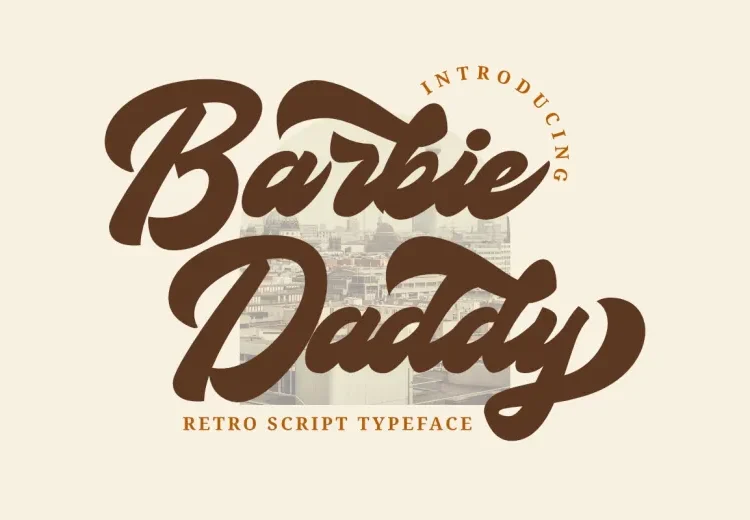
Barbie Daddy Font
Barbie Daddy is a charming old-fashioned script font that exudes retro feminine style, making it a striking choice for a wide array of creative projects. Its nostalgic yet vibrant appeal makes it a standout option for designs that demand attention and flair.
This versatile typeface is ideal for crafting projects utilizing digital technology, including circuit designs, T-shirts, and mugs. Its expressive style also shines in invitations, greeting cards, wall hangings, and eye-catching headlines. Whether you’re creating song titles, album covers, or music-themed stickers, Barbie Daddy Font adds a playful and stylish touch.
With its extensive usability, this font is perfect for quotes, SVG designs, and beyond. It invites designers to explore endless creative concepts while maintaining a distinctive retro charm. Its bold yet elegant strokes provide a unique personality that elevates any design it graces.